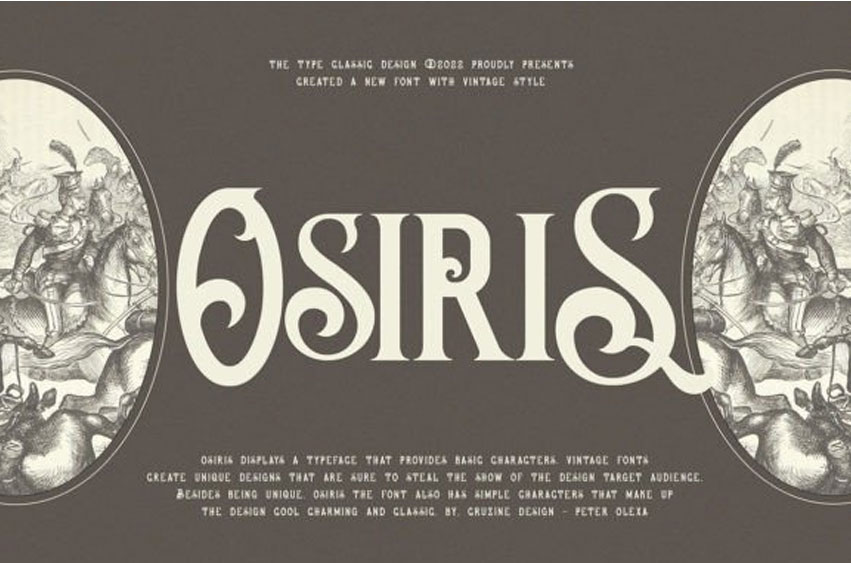
Osiris Display Font
Osiris Display Font is a stylish, distinctive, and vintage serif font with smooth curves and elegant lines.
With a hint of vintage charm, this font is perfect for creating visual impact for logos and headlines. Its unique look will give your designs a unique, eye-catching edge.